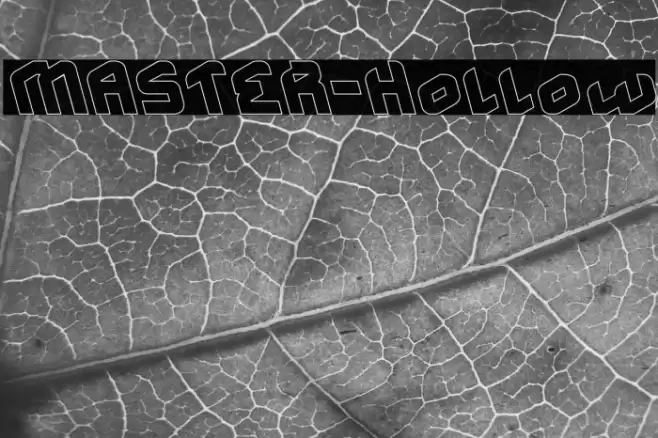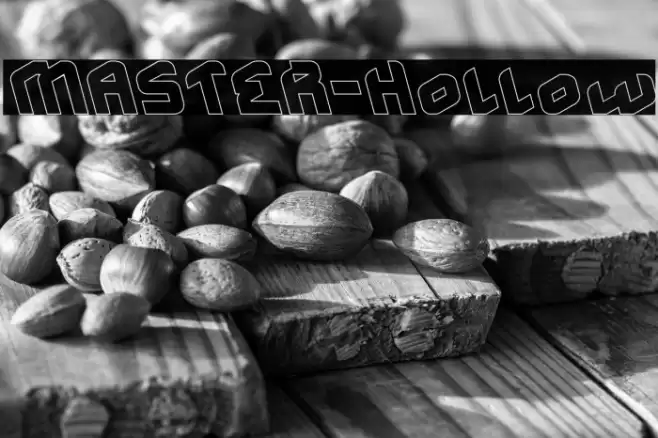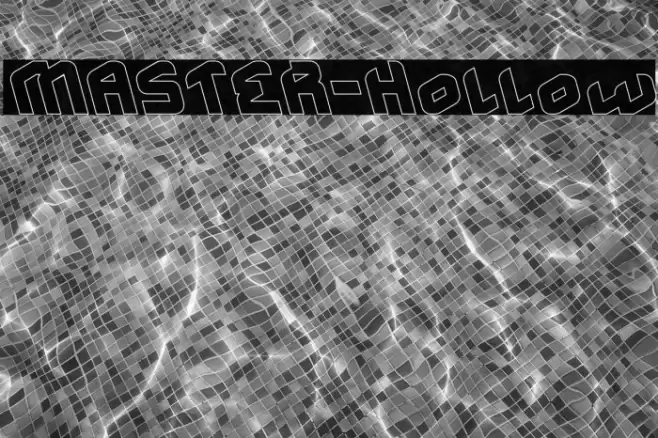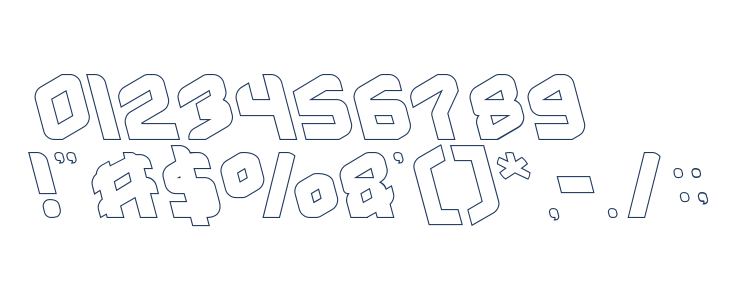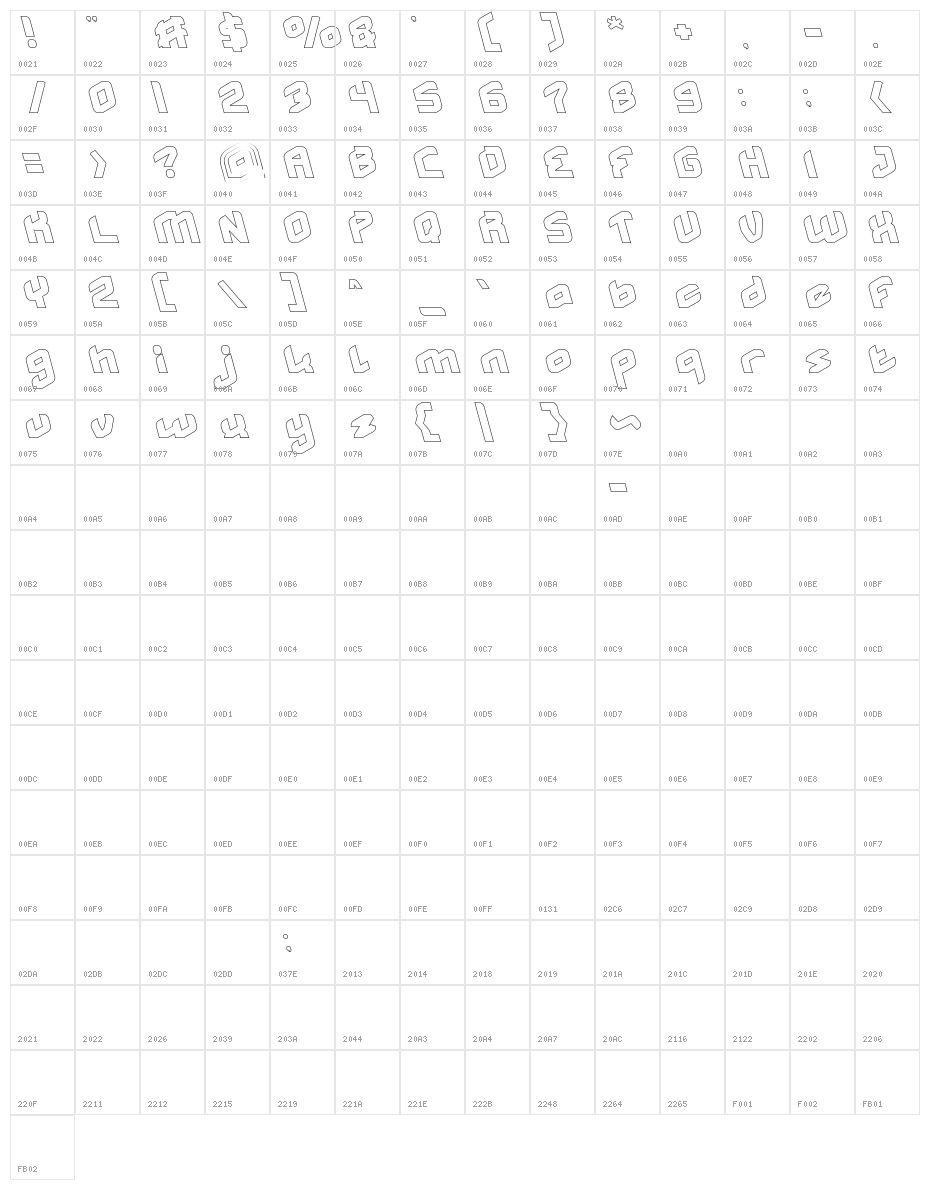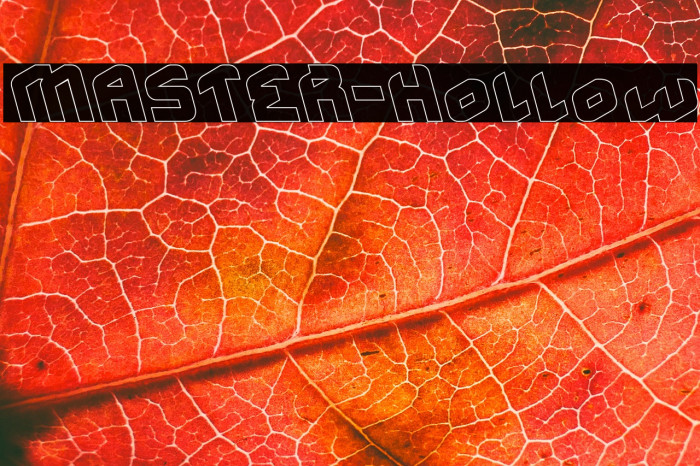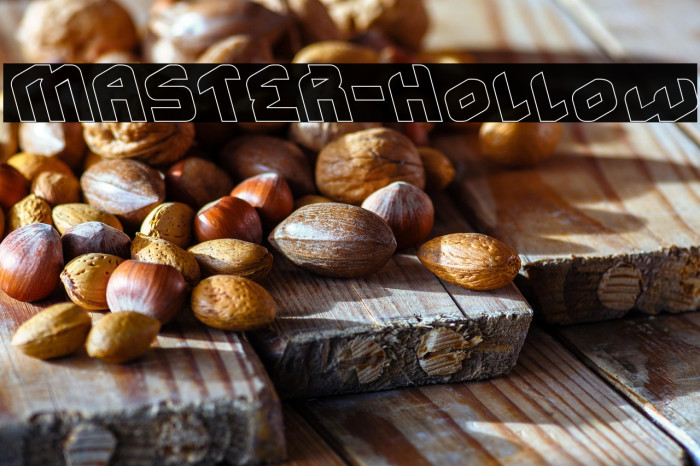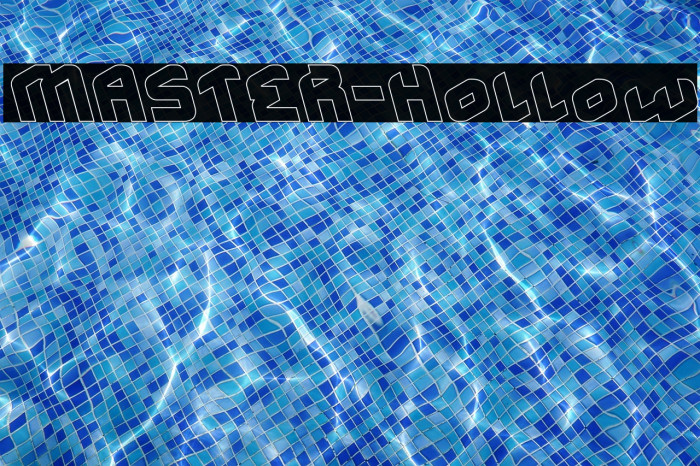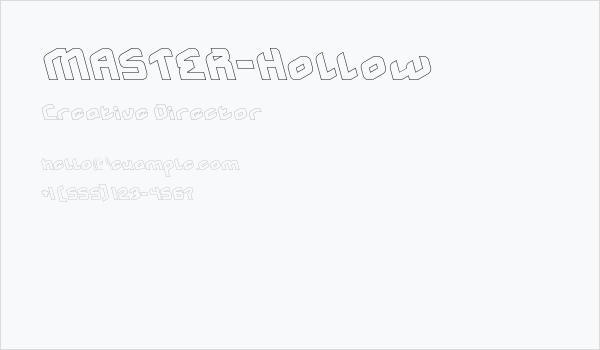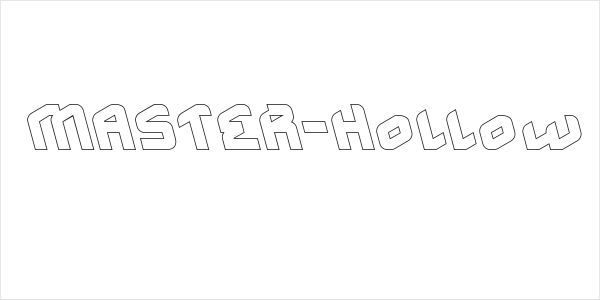
MASTER-Hollow Font
MASTER-Hollow Description
This font features a bold, hollow design with a geometric and angular style. Each character is outlined, creating a three-dimensional effect that stands out. The uppercase and lowercase letters maintain a consistent structure, with sharp edges and a futuristic appearance. Numbers and special characters follow the same design principles, ensuring uniformity across the set. The font's unique style makes it ideal for eye-catching designs where a modern and dynamic look is desired. Its hollow nature allows for creative use of background colors and textures to enhance the visual impact.
A bold, hollow, geometric font with a futuristic and angular design from Uncategorized fonts.
- Proposed Projects: Ideal for posters, logos, video game graphics, and futuristic-themed designs.